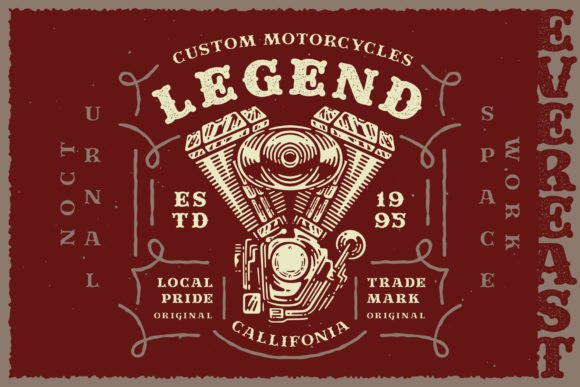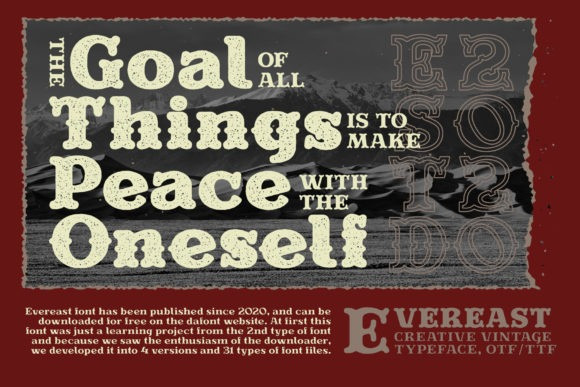
Evereast Font
Evereast Collection is a western looking, assertive and retro styled slab serif font. It is perfect for any branding project such as logos, t-shirt printing, creative products, and more. It will look extraordinary in a variety of contexts.